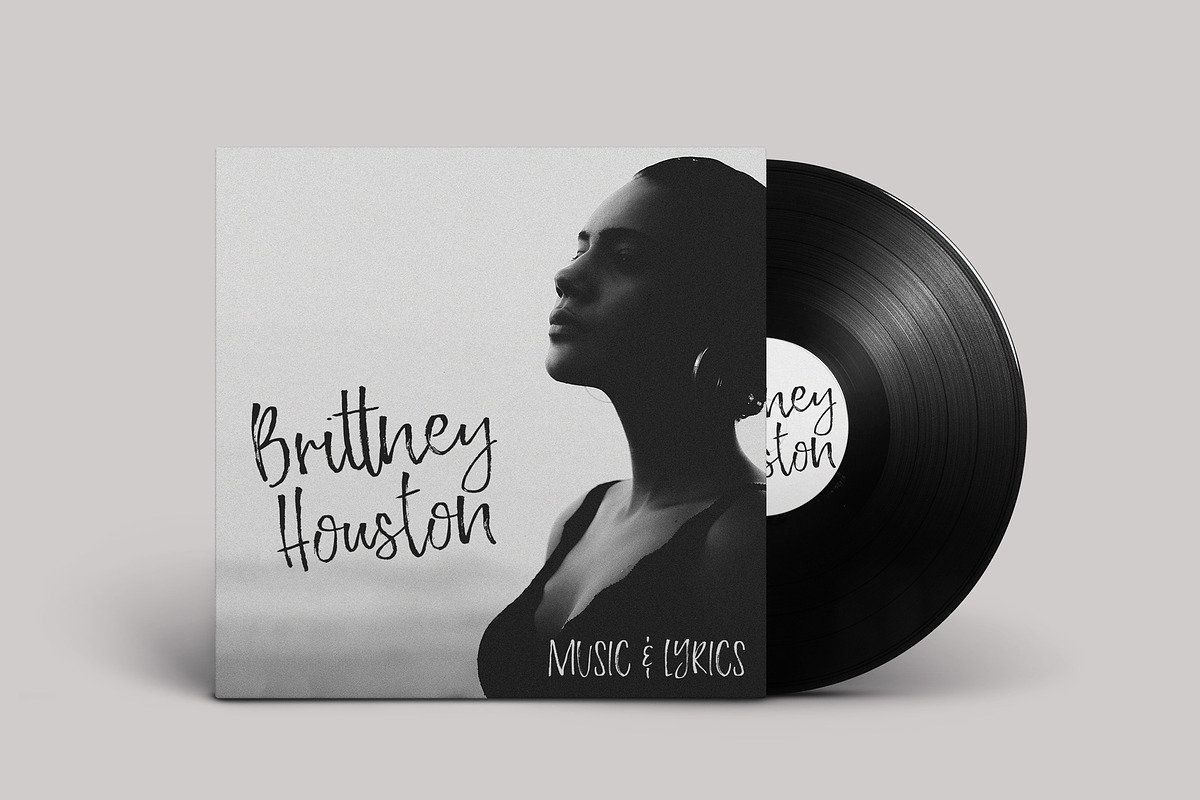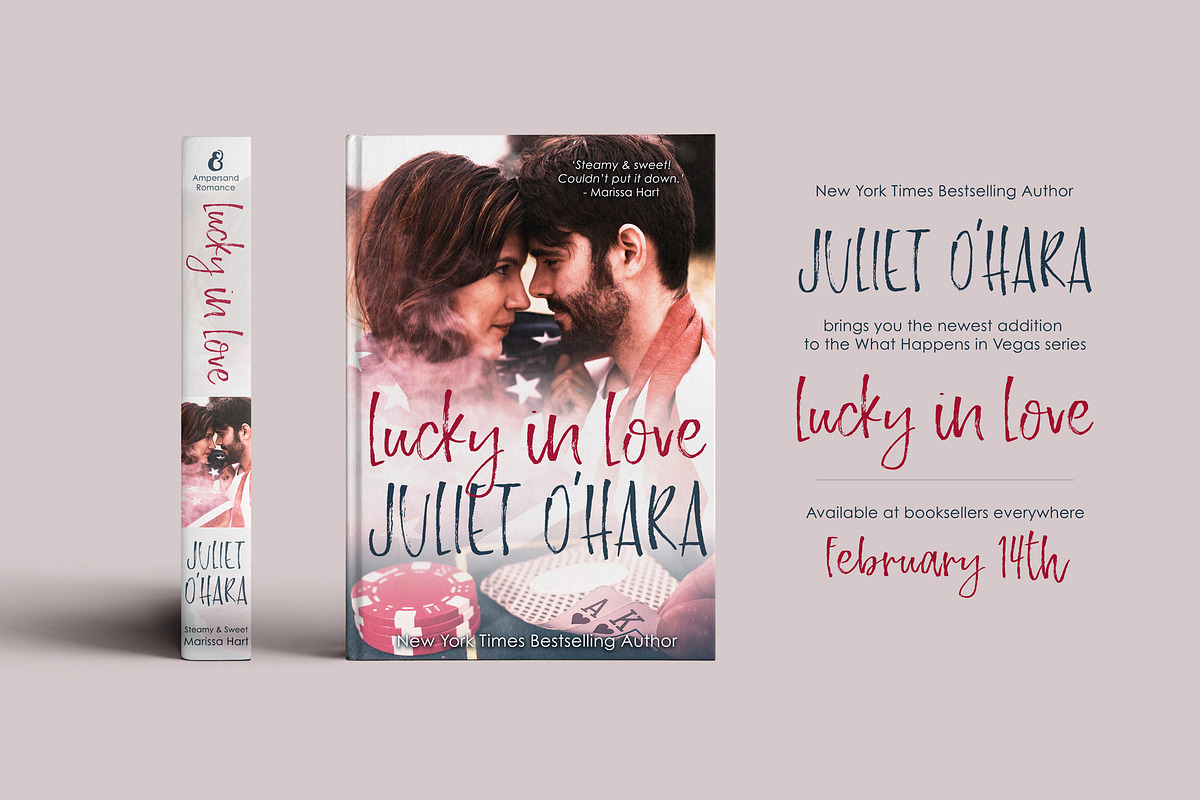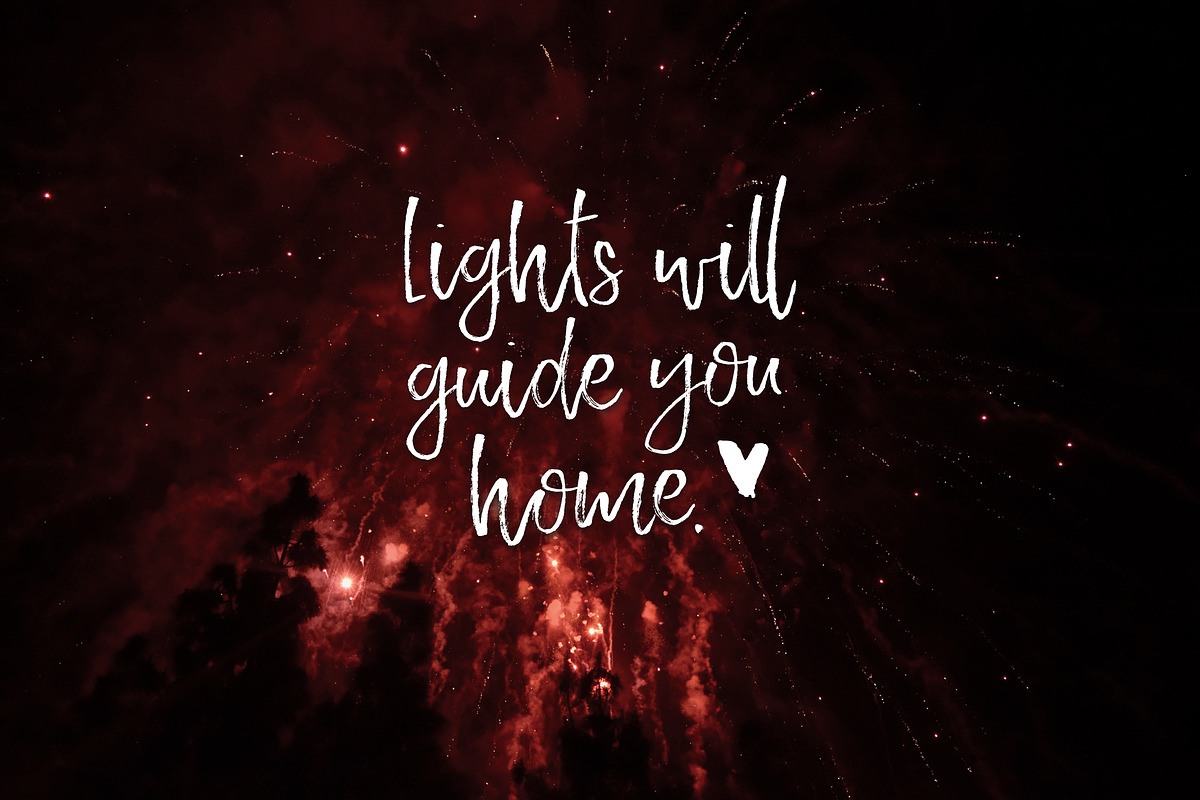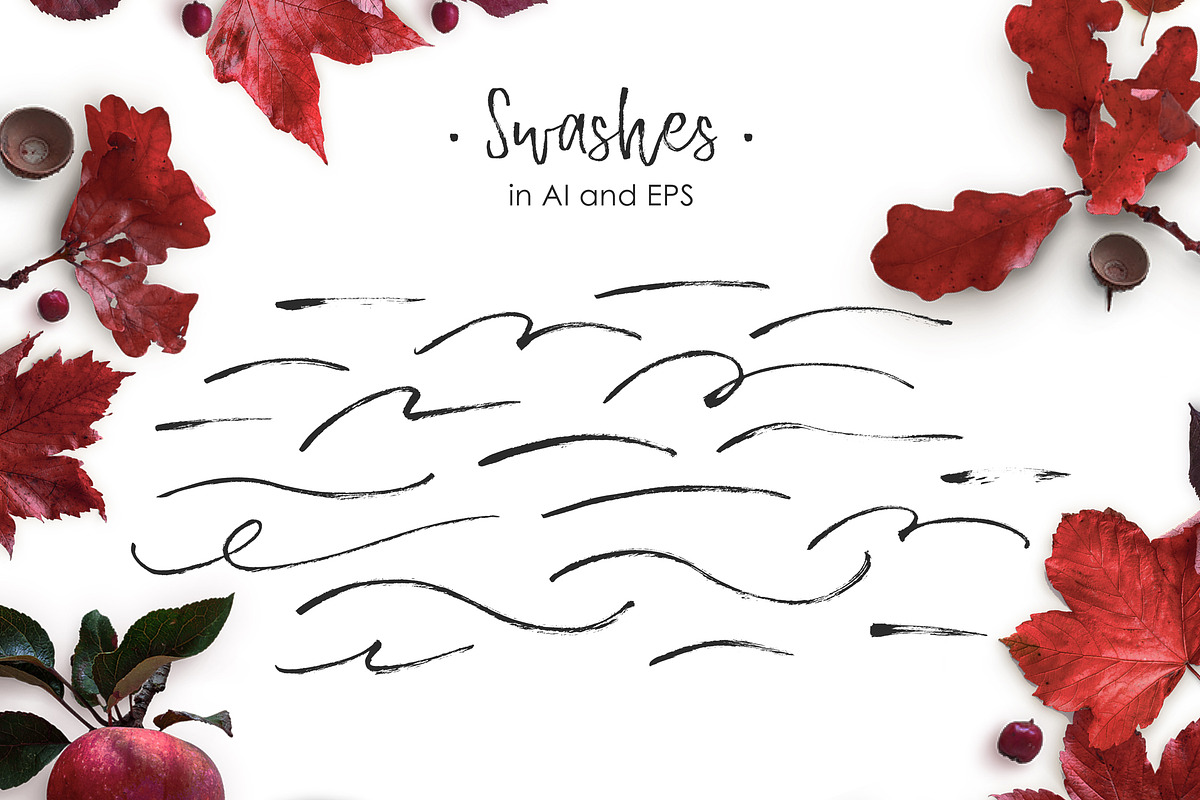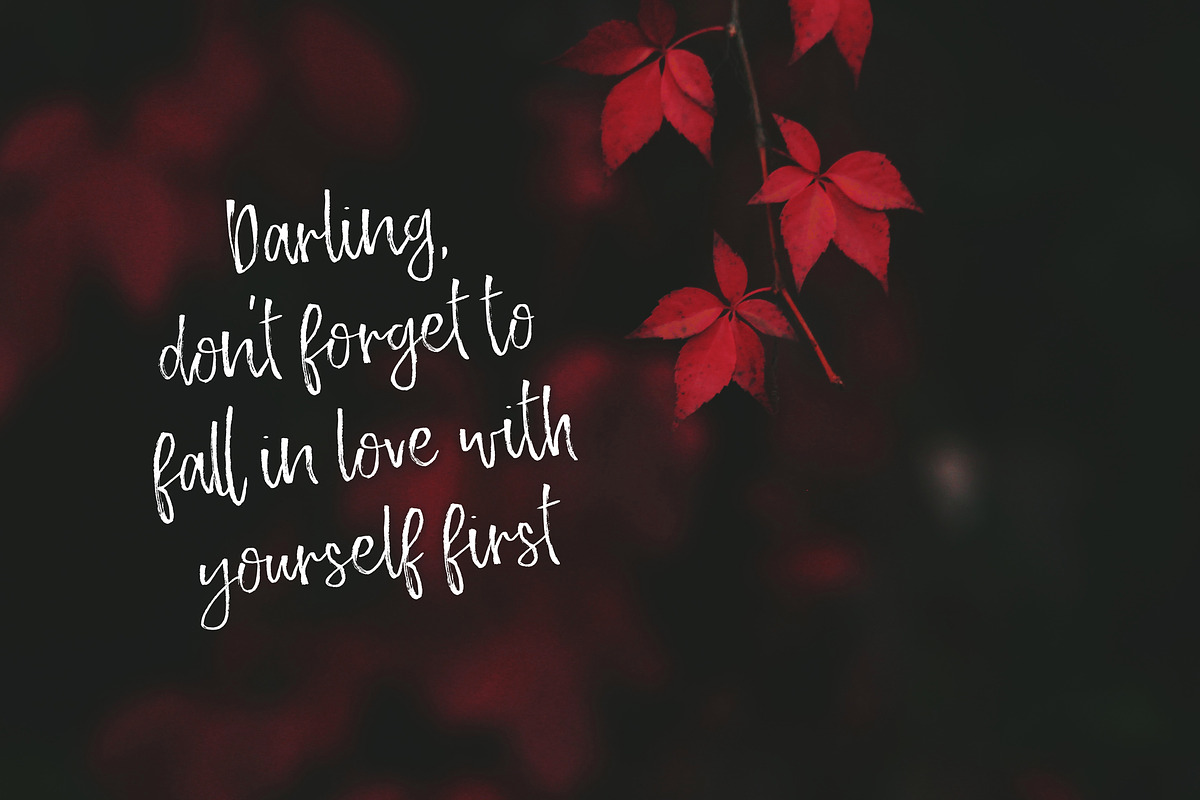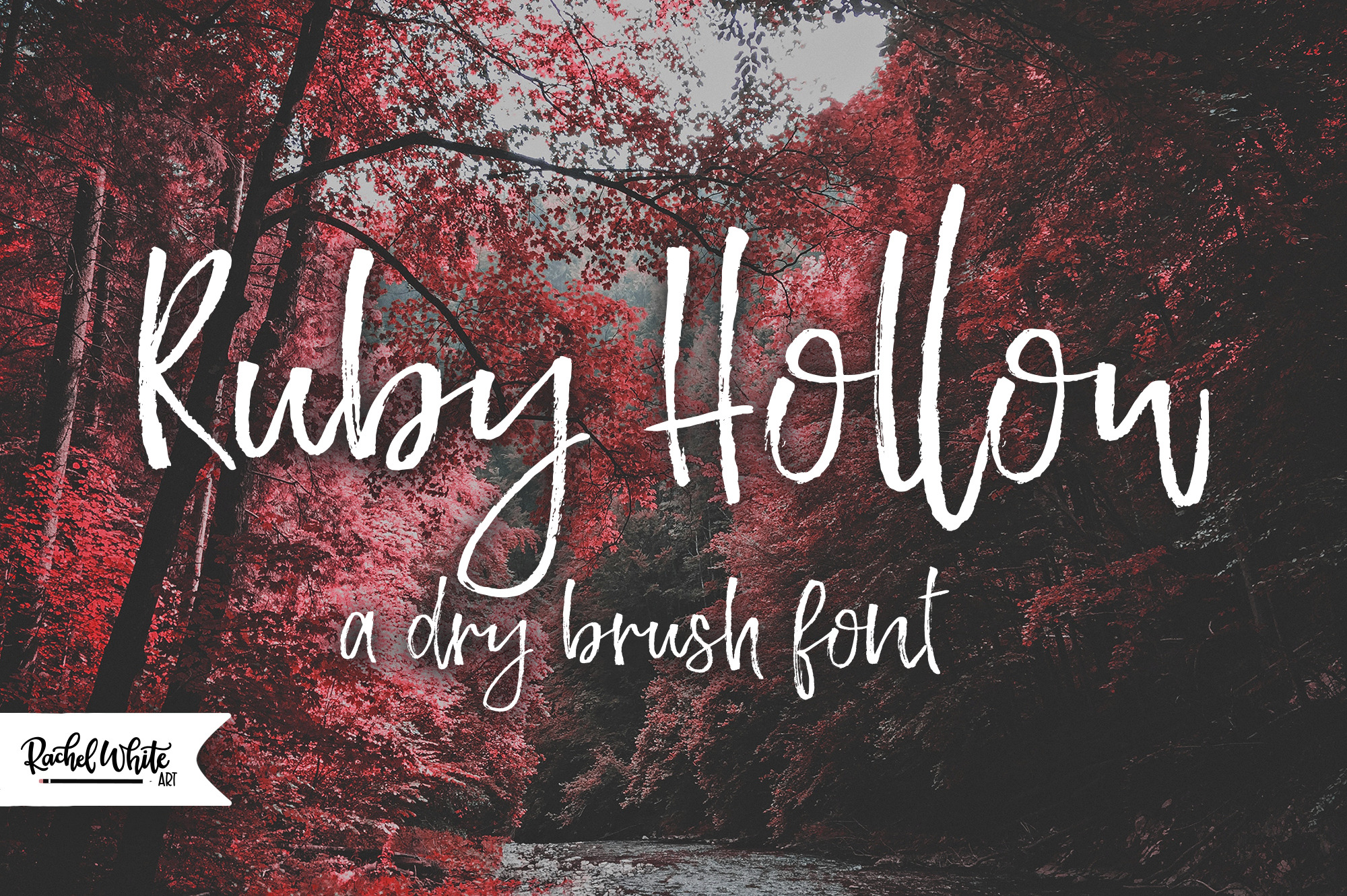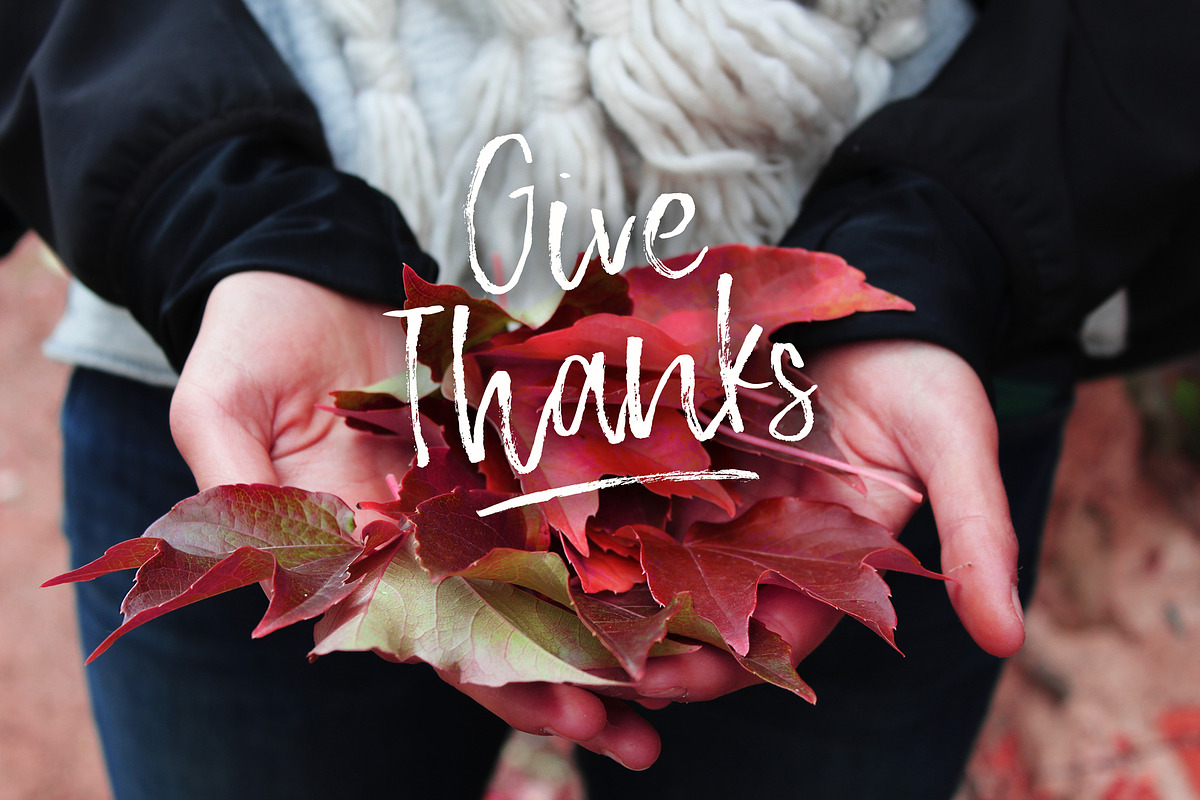
Ruby Hollow, a dry brush font
Ruby Hollow is a hand-painted script font with a dry brush texture and loads of character. Its rough edges and natural strokes give it a handcrafted, expressive feel that’s perfect for branding, posters, product packaging, and eye-catching social media graphics.
With its energetic style and slightly messy texture, Ruby Hollow brings a creative, artistic touch to any project that needs a little edge without losing charm.
- double letter ligatures - see image for details
- swashes
- unconnected contextual alternates for connecting letters (they act as end word characters, and also are programmed to pop up when interacting with s, v, x, and z for a more natural look.) and can also be accessed as Stylistic Alternates, or in the Glyphs panel.
Great for: Posters, branding, packaging, album covers, t-shirts, handmade product labels